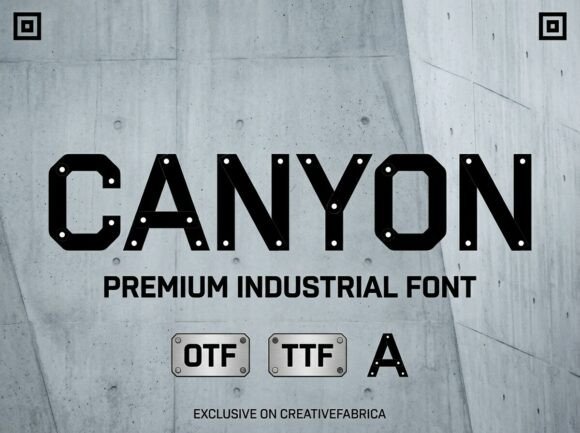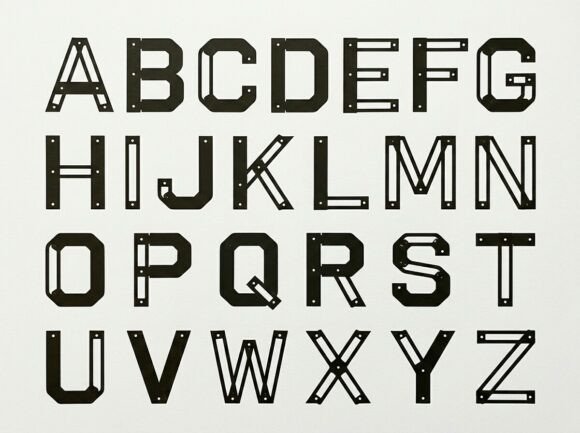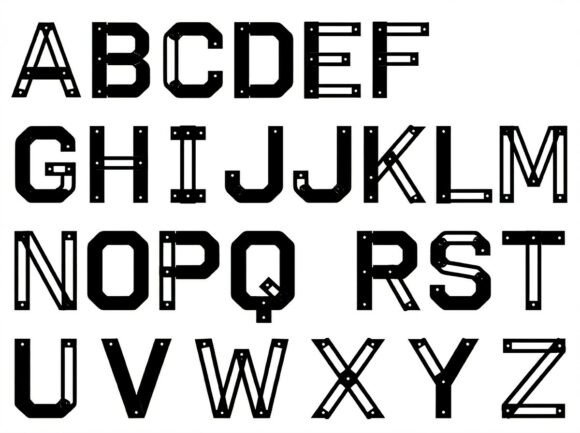
Introducing Canyon Font: A Stunning Decorative Display Font
Are you tired of using the same old fonts for your designs? Look no further than Canyon Font, a unique and artistic display font that’s sure to turn heads. This font is designed to be the center of attention, featuring bold and eye-catching letterforms that are perfect for creators who want to break away from the ordinary.
A Font with a Strong Visual Personality
Canyon Font is a versatile decorative display font that’s perfect for a variety of design projects. Its strong visual personality makes it ideal for bold headlines, artistic logos, and creative packaging. Whether you’re a designer, craftsperson, or DIY enthusiast, this font is sure to add a touch of professionalism and polish to your work.
Why Choose Canyon Font?
So why choose Canyon Font over other decorative display fonts? Here are just a few reasons:
- Unique Artistic Elements: Canyon Font features unique artistic elements that set it apart from other fonts. Its bold and eye-catching letterforms are sure to make your designs stand out.
- Professional and Polished Finish: Despite its bold and artistic design, Canyon Font maintains a professional and polished finish that’s perfect for a variety of design projects.
- Versatility: Canyon Font is versatile enough for use in a variety of design projects, from bold headlines and artistic logos to creative packaging and more.
How to Use Canyon Font
Canyon Font is perfect for a variety of design projects, including:
- Headlines and Titles: Use Canyon Font to create bold and eye-catching headlines and titles that are sure to grab attention.
- Logos and Branding: Canyon Font is perfect for creating artistic logos and branding materials that showcase your company’s personality and style.
- Packaging and Labels: Add a touch of professionalism and polish to your packaging and labels with Canyon Font.
- Signage and Displays: Use Canyon Font to create eye-catching signage and displays that are sure to stand out.
Tips for Working with Canyon Font
Here are a few tips for working with Canyon Font:
- Use it sparingly: Canyon Font is a bold and eye-catching font, so use it sparingly to avoid overwhelming your design.
- Pair it with a neutral font: Pair Canyon Font with a neutral font to create visual interest and add contrast to your design.
- Experiment with colors and textures: Don’t be afraid to experiment with different colors and textures to add depth and interest to your design.